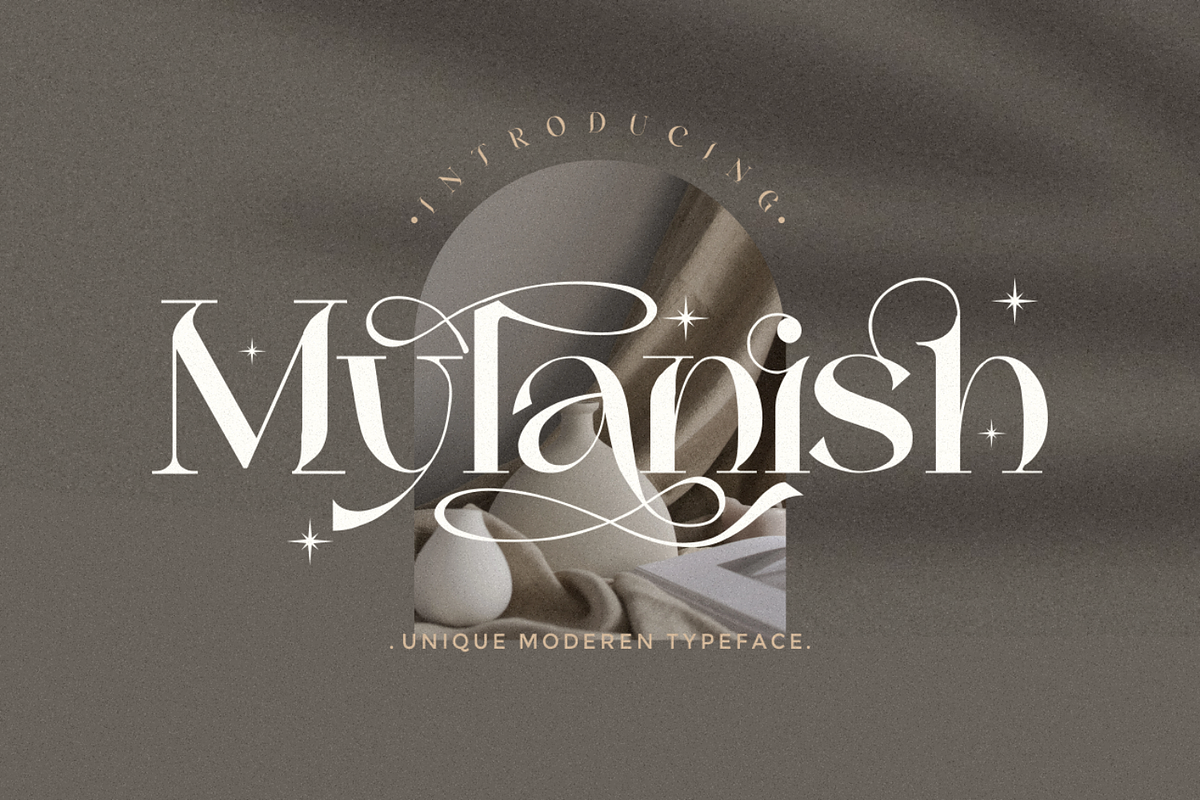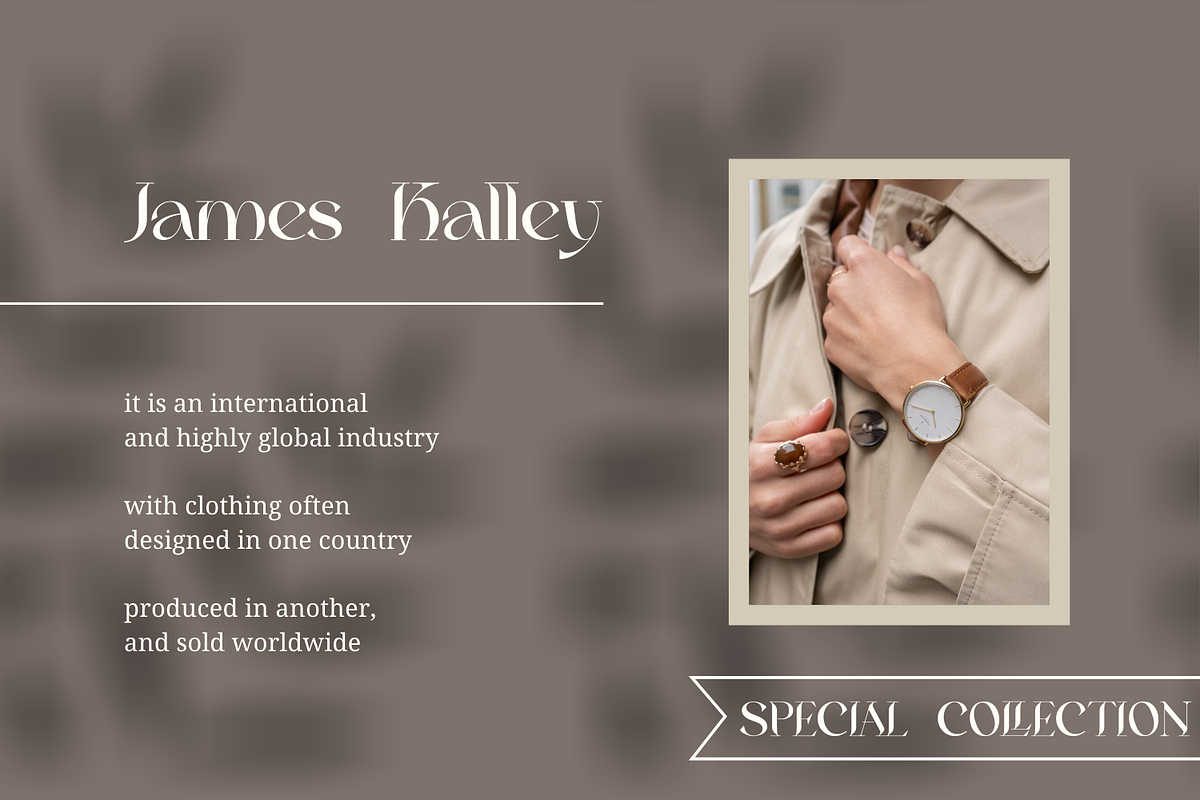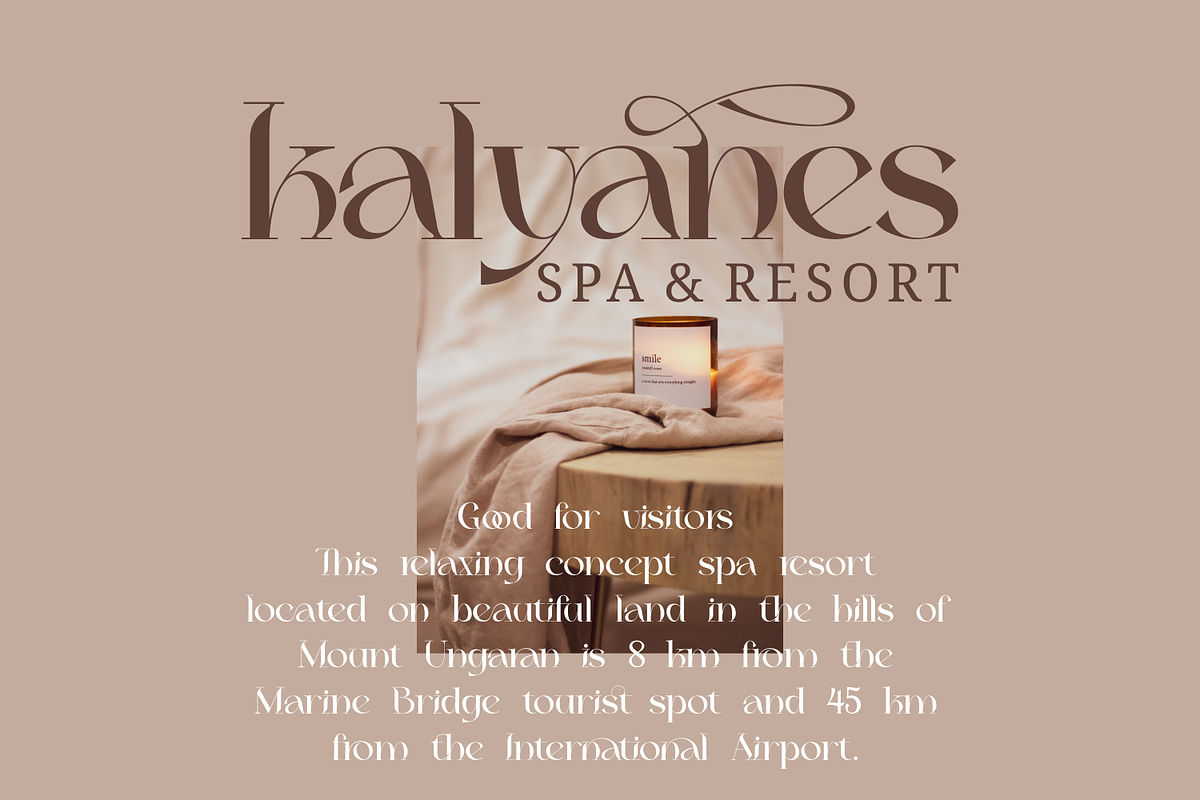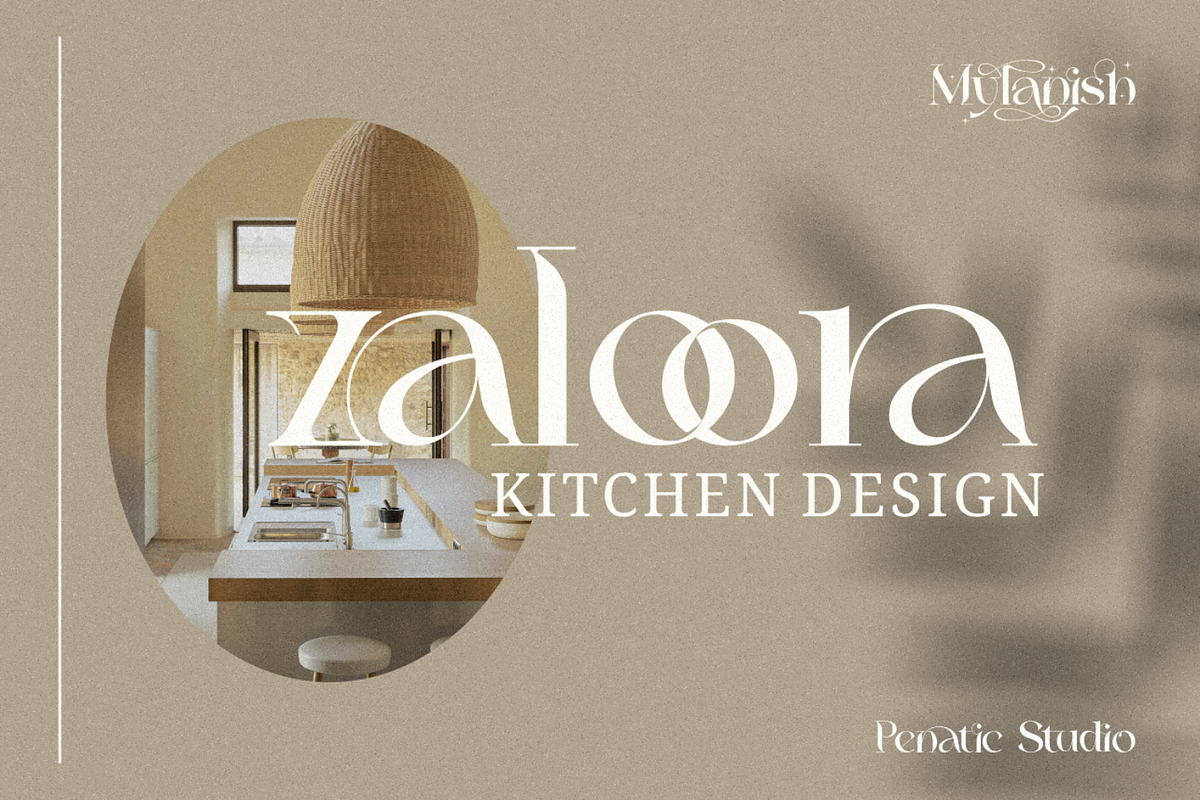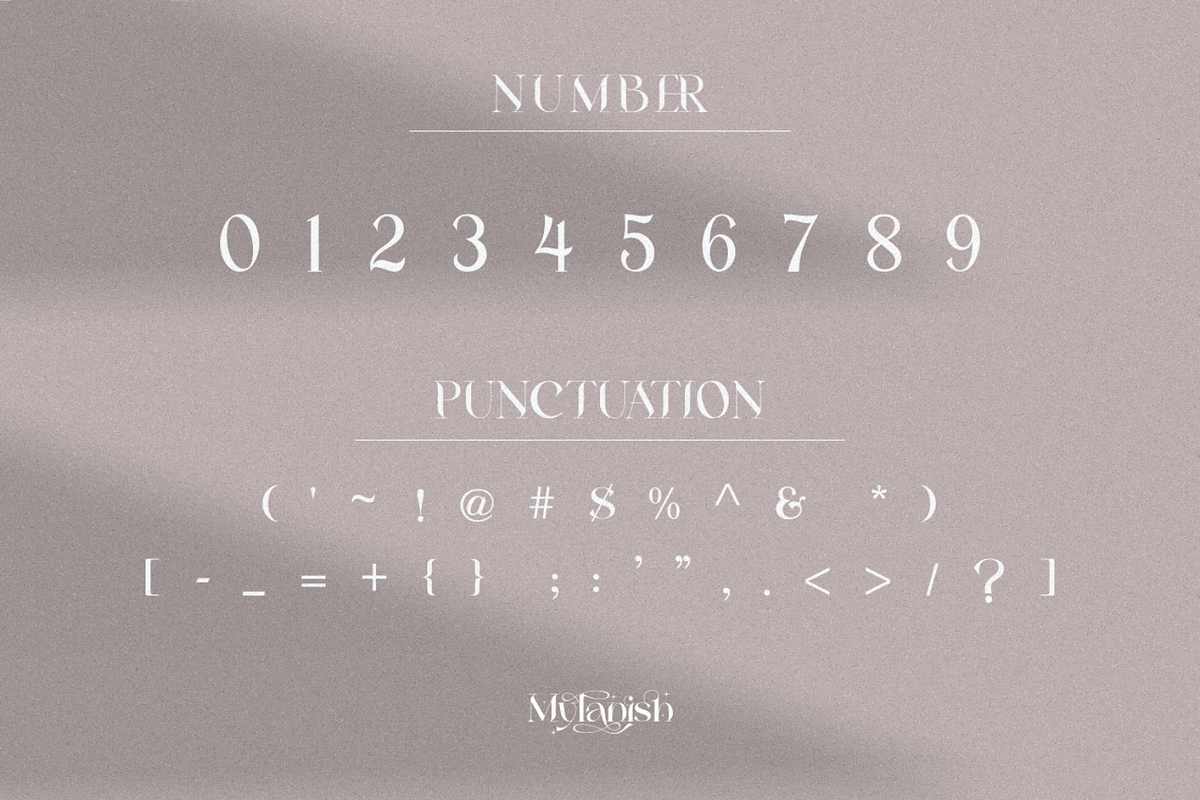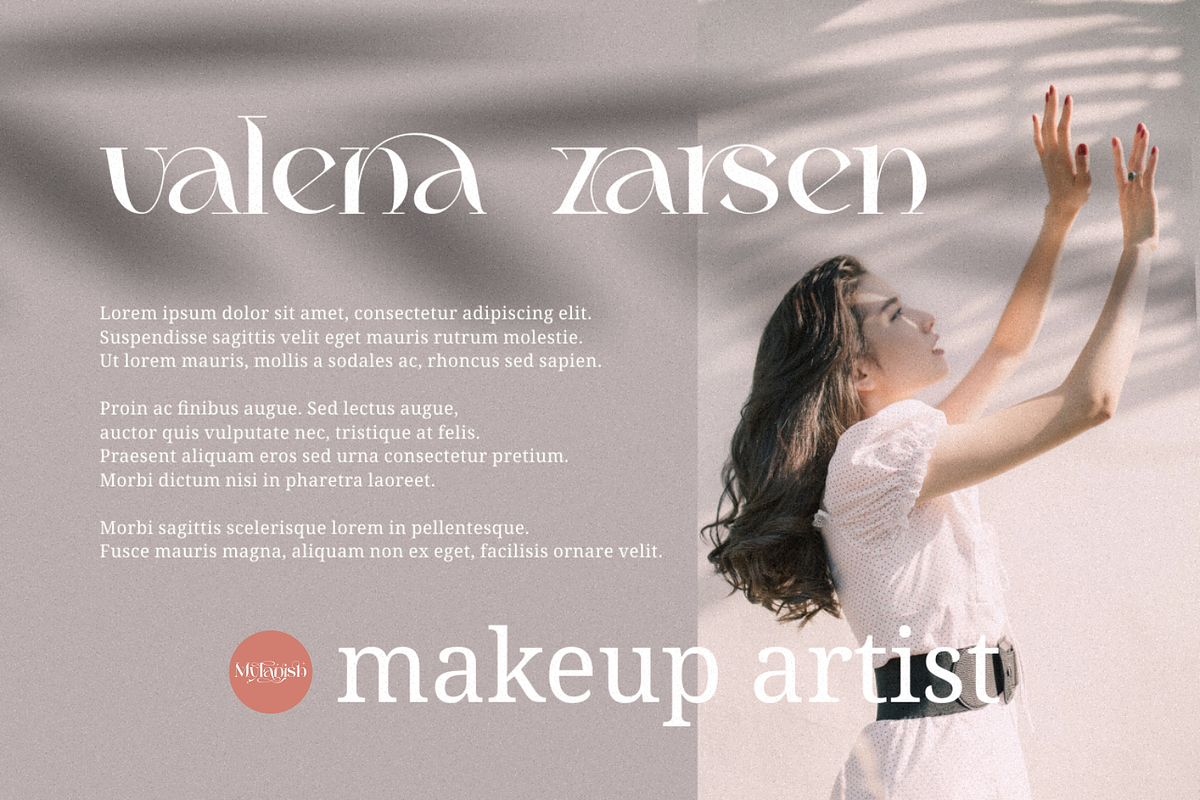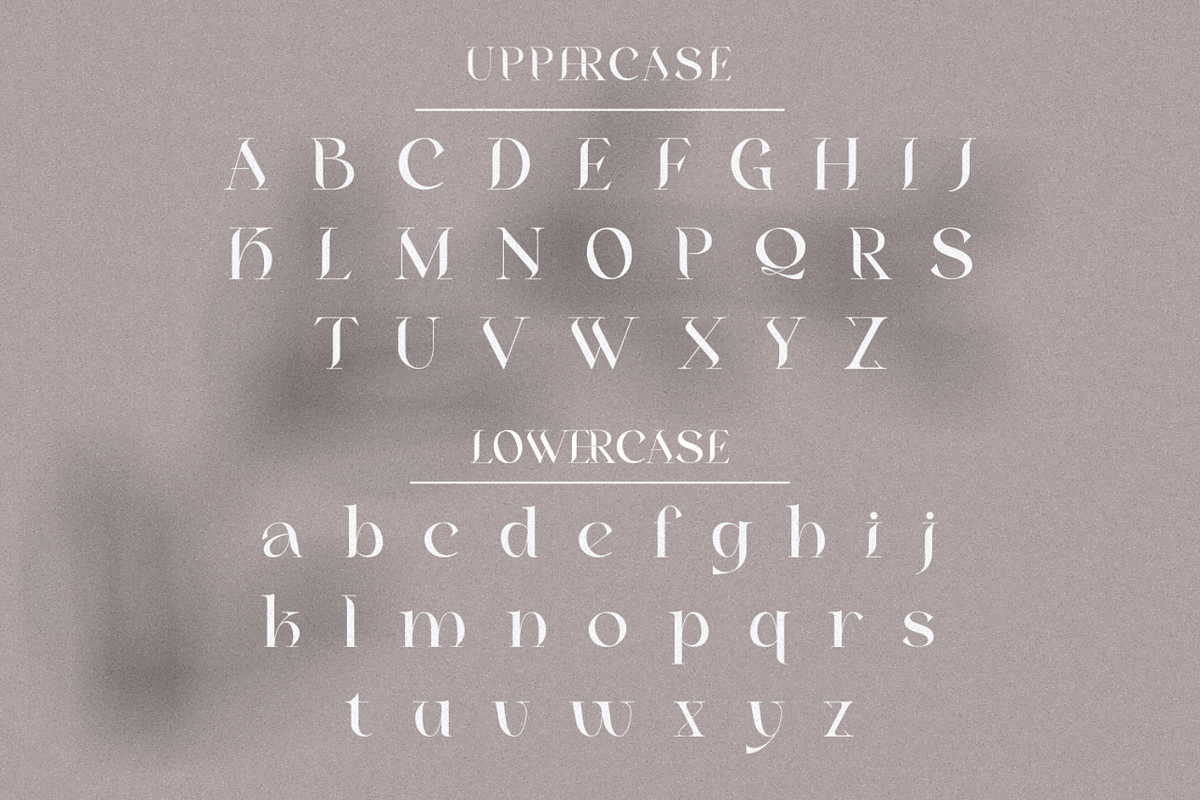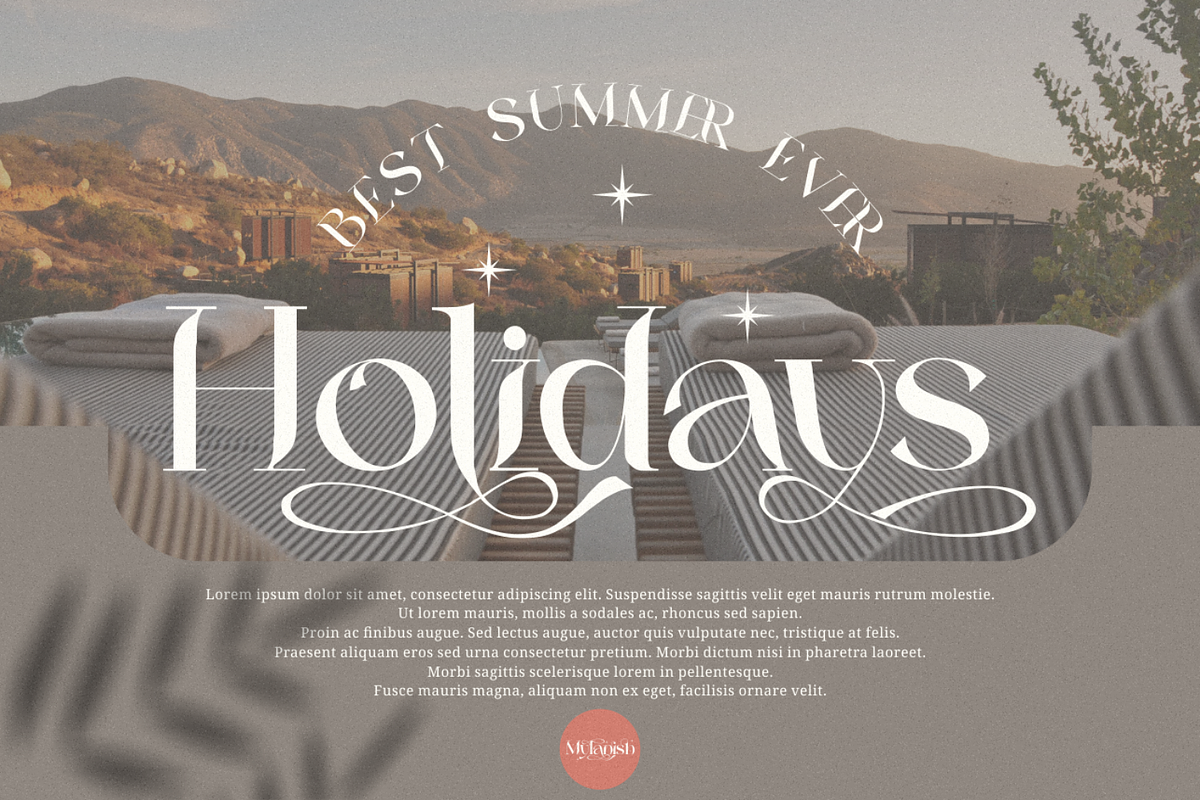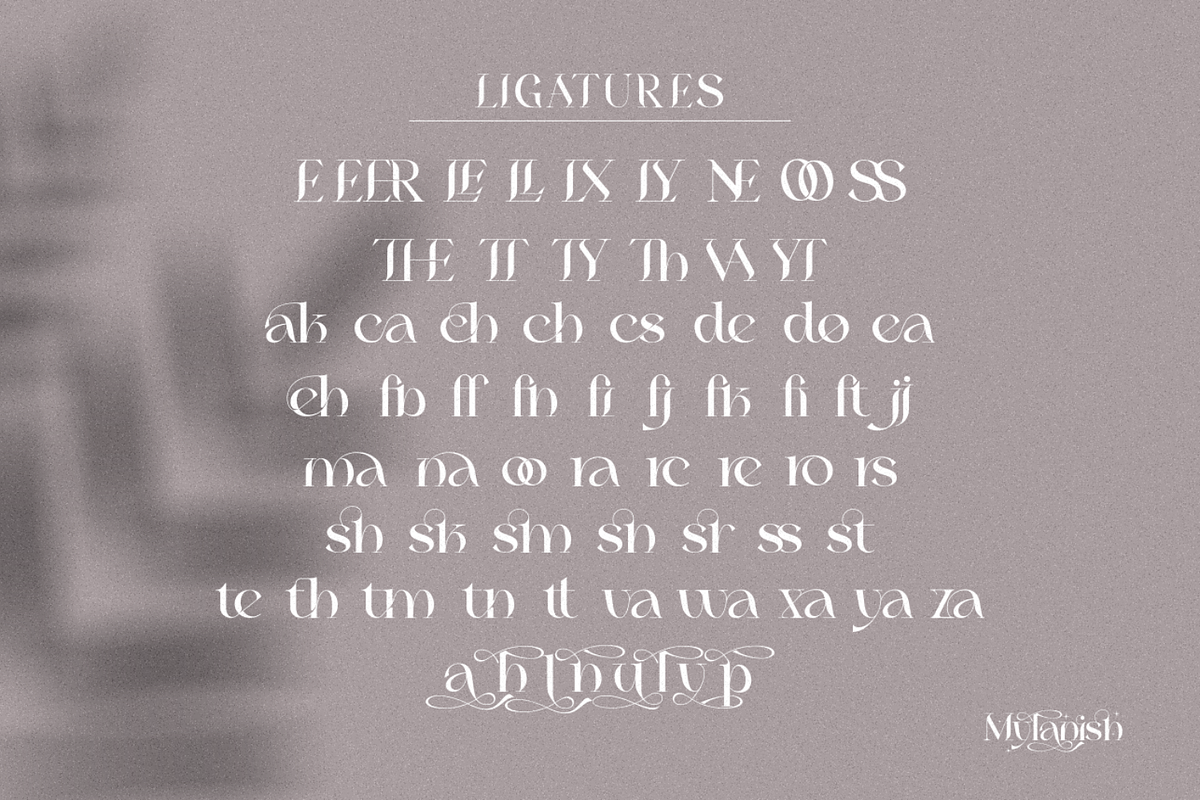
Mylanish _ unique modern typeface
Mylanish is a serif font with a unique modern typeface. Mylanish is unique in that it can be used for a variety of styles. perfect for branding, logos, social media, prints, stickers, shirts, svg files, and more! also for a classier editorial look!
There are lots of fun style alternatives available to use in this font. And very easily accessible in programs like photoshop and illustrator.
MULTILINGUAL